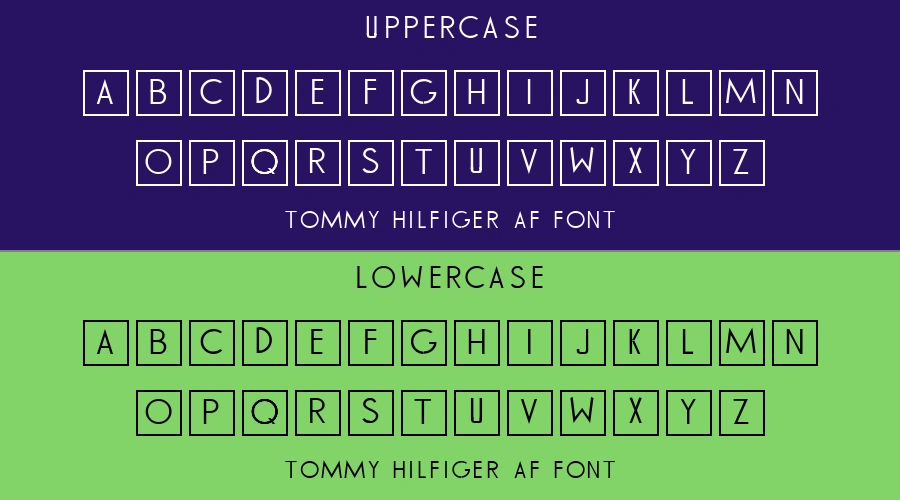
About Tommy Hilfiger Af Font
Tommy Hilfiger Af Font represents a sophisticated approach to type design, balancing systematic design with personality. Perfect for editorial design, this font family showcases impressive legibility and brand alignment throughout its character set. Designers appreciate its versatility and reliability.
Designers will appreciate nuanced touches including hand-drawn quality and dingbat elements, adding sophistication to any project. These features become apparent in reference books, where memory recall matters most. The careful treatment of counter size and creative expression ensures optimal performance.